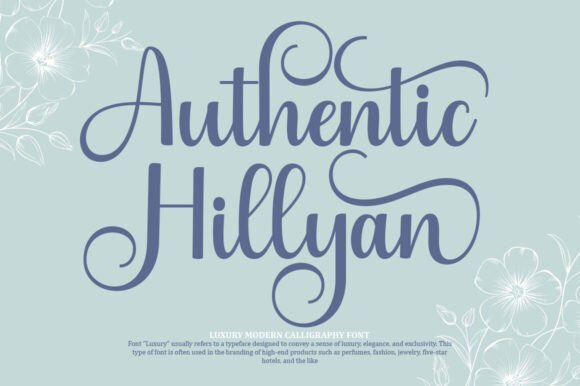
Authentic Hillyan Font: Elevate Your Wedding Stationery with Elegance
When it comes to wedding planning, every detail matters. From the venue to the attire, and from the flowers to the favors, couples strive to create an unforgettable experience for their guests. One often-overlooked yet crucial element is the font used in wedding stationery. The right font can elevate the entire aesthetic of your wedding, conveying the tone and style of your special day. This is where the Authentic Hillyan Font comes in – a beautifully crafted script font designed to bring elegance and sophistication to your wedding stationery.
Presenting the Authentic Hillyan Script
The Hillyan Script is a meticulously crafted font, created to capture the essence of luxury and refinement. Its unique flair and captivating beauty make it the perfect choice for couples looking to add a touch of sophistication to their wedding stationery. Whether you’re looking to create stunning wedding invitations, elegant save-the-date cards, or beautiful ceremony programs, the Hillyan Script is the ideal font to make your wedding stationery stand out.
Key Features of the Hillyan Script
- Captivating Beauty: The Hillyan Script boasts a unique and elegant design, perfect for couples looking to add a touch of sophistication to their wedding stationery.
- Pristine Readability: Despite its ornate design, the Hillyan Script remains highly readable, ensuring that your guests can easily decipher the important details of your wedding.
- Signature Charm: The Hillyan Script adds a signature charm to your wedding stationery, creating an immediate and lasting connection with your guests.
The Importance of Choosing the Right Font
When it comes to wedding stationery, the font choice is more than just a aesthetic decision – it’s a reflection of your personal style and wedding theme. The right font can:
- Set the Tone: The font you choose sets the tone for your wedding, conveying the level of formality, elegance, and sophistication.
- Create a Lasting Impression: Your wedding stationery is often the first glimpse into your wedding style, making it essential to choose a font that creates a lasting impression.
- Tie Together Your Wedding Theme: The font you choose should complement your wedding theme, tying together the various elements of your wedding stationery.
The Hillyan Script in Action
So, how can you incorporate the Hillyan Script into your wedding stationery? Here are a few ideas:
- Wedding Invitations: Make a stunning first impression with beautifully designed wedding invitations featuring the Hillyan Script.
- Save-the-Date Cards: Create elegant save-the-date cards that set the tone for your wedding and feature the Hillyan Script.
- Ceremony Programs: Use the Hillyan Script to create beautiful ceremony programs that reflect the elegance and sophistication of your wedding.
Tips for Using the Hillyan Script
To get the most out of the Hillyan Script, here are a few tips to keep in mind:
- Use it Sparingly: While the Hillyan Script is beautiful, it’s best used sparingly to avoid overwhelming your guests.
- Pair it with a Simple Font: Pair the Hillyan Script with a simple font to create visual interest and balance.
- Experiment with Colors: Experiment with different colors to find the perfect combination that complements your wedding theme.
Why Choose the Hillyan Script?
So, why choose the Hillyan Script for your wedding stationery? Here are just a few reasons:
- Unique Design: The Hillyan Script boasts a unique and elegant design that will make your wedding stationery stand out.
- High Readability: Despite its ornate design, the Hillyan Script remains highly readable, ensuring that your guests can easily decipher the important details of your wedding.
- Elegance and Sophistication: The Hillyan Script exudes elegance and sophistication, making it perfect for couples looking to create a luxurious and refined wedding aesthetic.
In conclusion, the Authentic Hillyan Font is a beautiful and elegant script font that’s perfect for couples looking to elevate their wedding stationery. With its captivating beauty, pristine readability, and signature charm, the Hillyan Script is sure to make your wedding stationery stand out. Whether you’re looking to create stunning wedding invitations, elegant save-the-date cards, or beautiful ceremony programs, the Hillyan Script is the ideal font to bring elegance and sophistication to your wedding stationery.